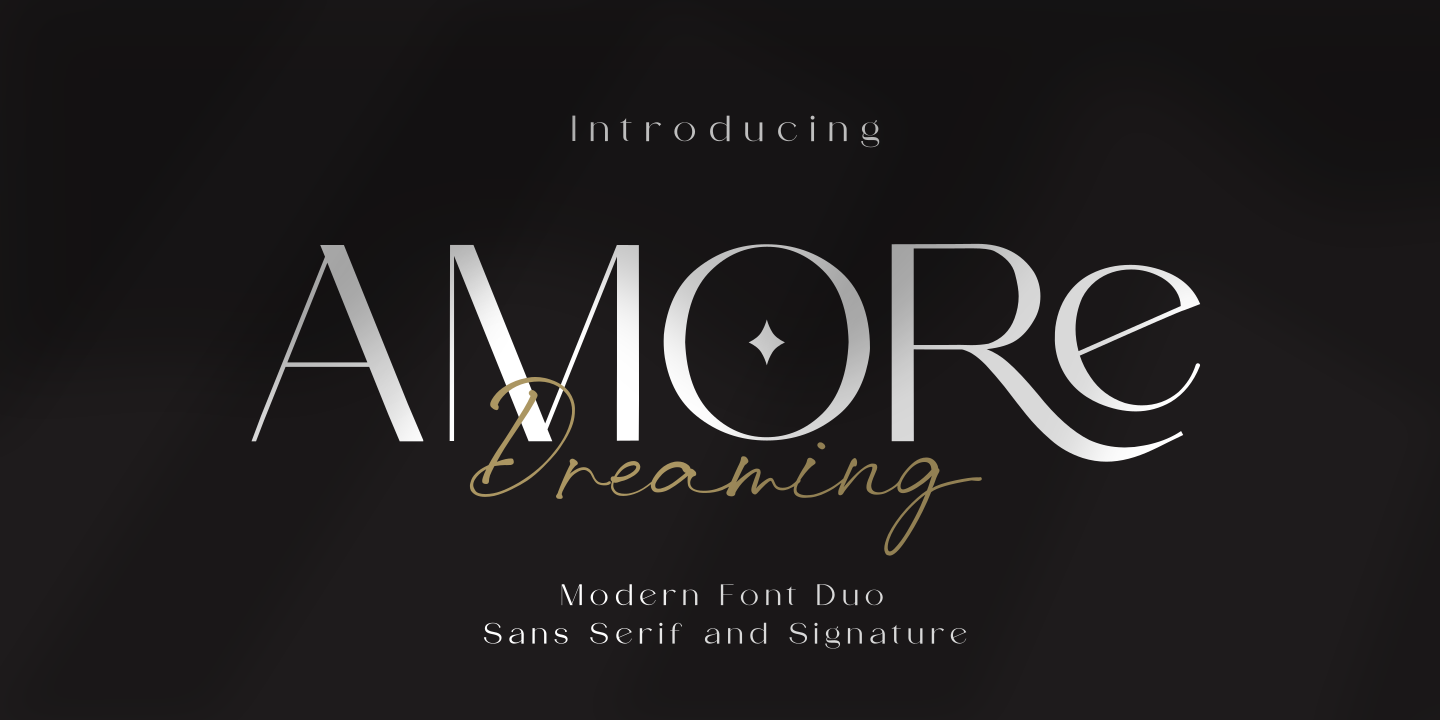
Amore Dreaming Font is perfect for dreamy wedding photography, romantic poetry publications, ethereal fashion branding, Italian restaurant menus, love story book covers, Valentine's spa marketing, intimate boutique hotels, romantic perfume packaging, couples retreat promotions, and enchanting projects that celebrate the magical poetry of love and romantic dreams with Italian-inspired sophistication and ethereal beauty.
What makes Amore Dreaming Font so exciting is its sublime fusion of Italian romance with dreamy elegance through flowing letterforms that capture the essence of love's most beautiful moments. This typeface embodies the poetry of amore and the wonder of romantic dreams, featuring graceful curves and celestial flourishes that suggest moonlit serenades and whispered promises while maintaining excellent readability for contemporary romantic applications requiring both passion and refinement.
Amore Dreaming Font family encompasses multiple romantic variations: Regular, Bold, Light, Dreamy, Ethereal, Poetic, Celestial, and Romance versions. Each style maintains the font's inherent romantic dreaminess while offering different levels of ethereal beauty and passionate expression, enabling designers to create authentic love-inspired aesthetics that resonate with audiences seeking transcendent romantic experiences and poetic emotional connections.
The transcendent appeal of Amore Dreaming Font Free Download makes it exceptionally valuable for luxury romance and wedding industries celebrating love's magical qualities. This font successfully communicates passionate dreaminess and romantic poetry, making it perfect for brands that want to create unforgettable romantic experiences and connect with audiences through the universal language of love dreams. Its ethereal character works beautifully across both digital romantic platforms and luxury print materials, while its distinctive dreamy aesthetic creates immediate emotional enchantment among audiences who believe in the transformative power of romantic love and dream fulfillment.